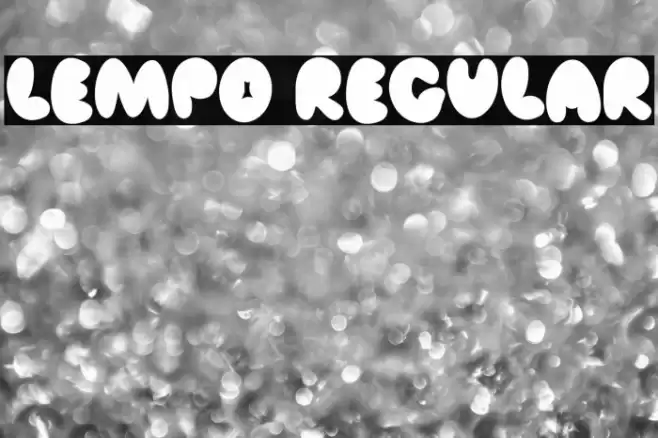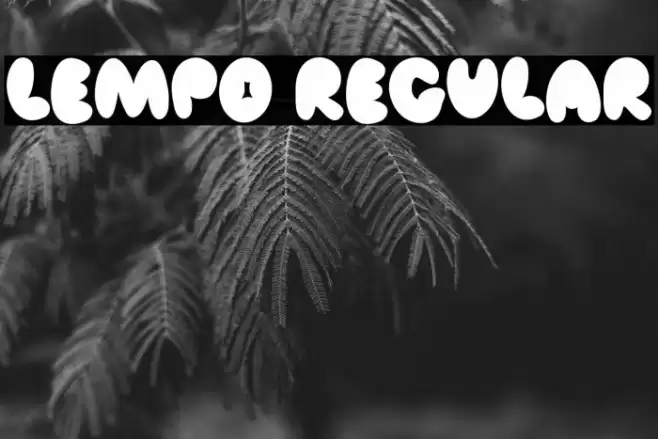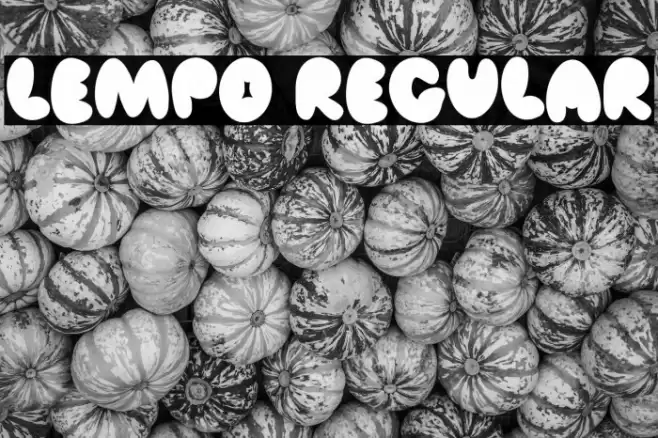
Lempo Regular Font
Lempo Regular Description
This font features a playful and bold design with rounded, bubble-like characters. Each letter is crafted with a consistent thickness, giving it a uniform appearance. The characters are wide and have a soft, friendly look, making them ideal for designs that require a fun and approachable aesthetic. The numbers and special characters maintain the same bubbly style, ensuring cohesion across all elements. This font's unique style makes it stand out, perfect for creative projects that aim to capture attention.
A playful, bold font with rounded, bubble-like characters from Uncategorized fonts.
- Proposed Projects: Ideal for children's books, playful branding, party invitations, and creative posters.
- Width: Expanded
- Overall Style: Playful, Fun, Bold